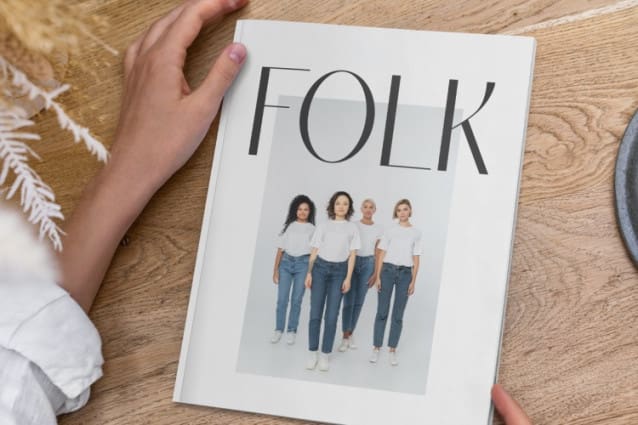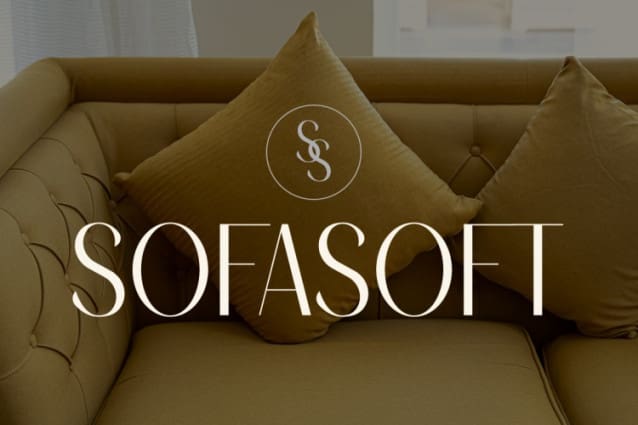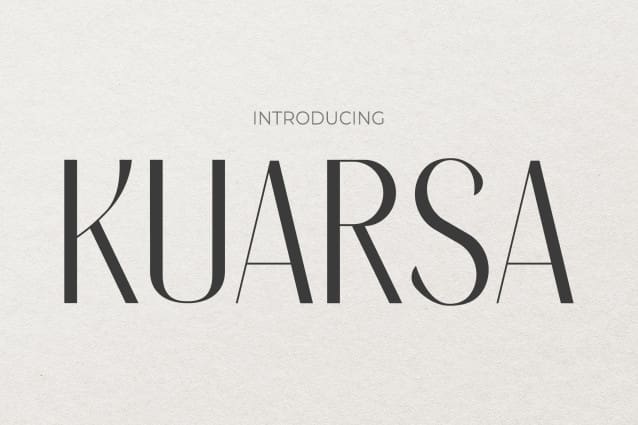
Kuarsa Font
Kuarsa Font embodies a delightful blend of tranquility and femininity. With its calm demeanor and girly charm, KuarsaFont adds a soft touch to any design project. The gentle curves and subtle flourishes of this font create an ambiance of serenity and grace, making it perfect for conveying a sense of understated elegance in various contexts.
Kuarsa Font brings a serene yet playful vibe to your designs, making it an ideal choice for projects requiring a balance of sophistication and femininity. Whether you’re designing greeting cards, branding materials, or blog graphics, KUARSAFont infuses your work with a unique blend of calmness and girlish charm, ensuring that your message is conveyed with style and grace.